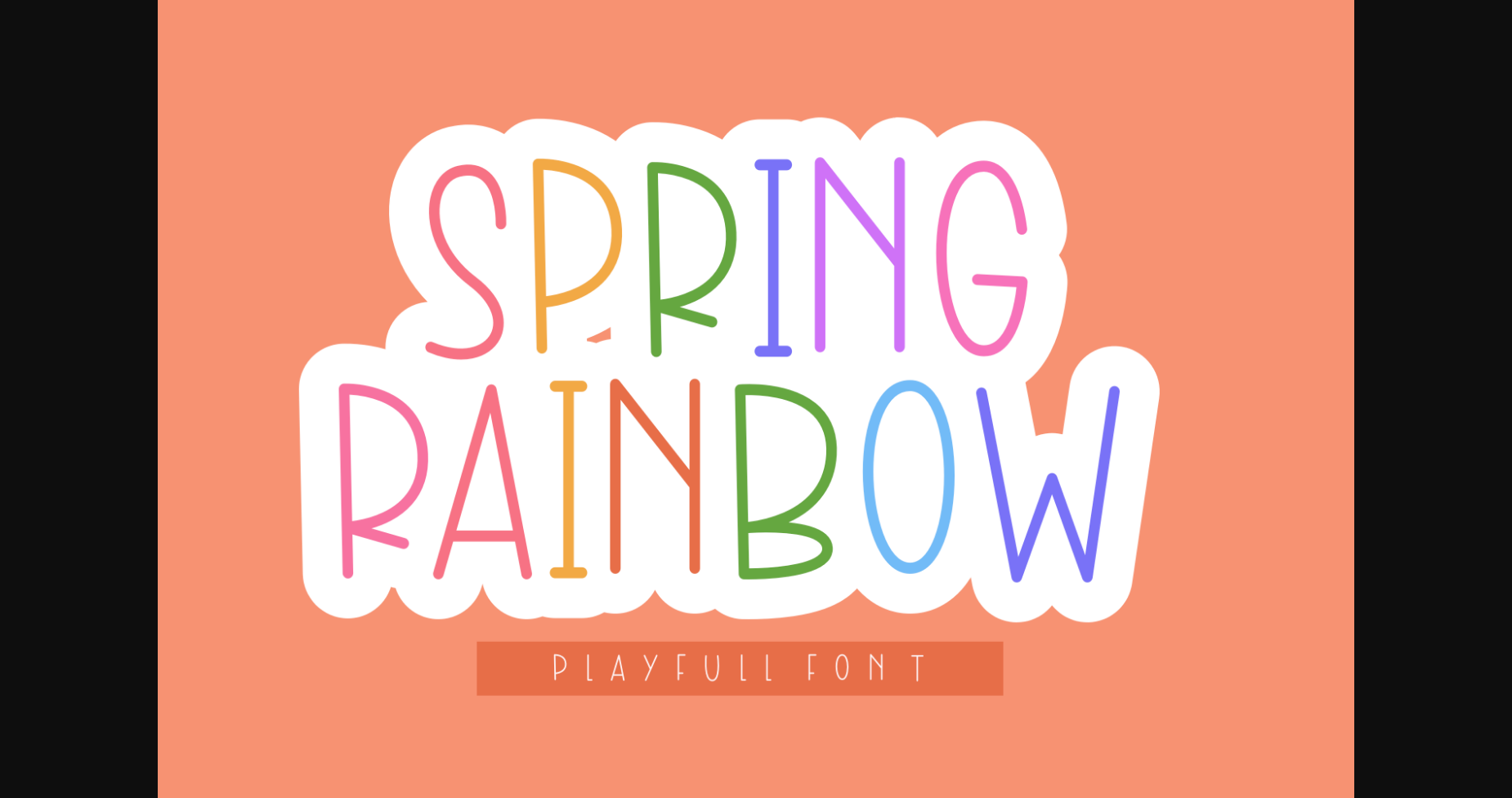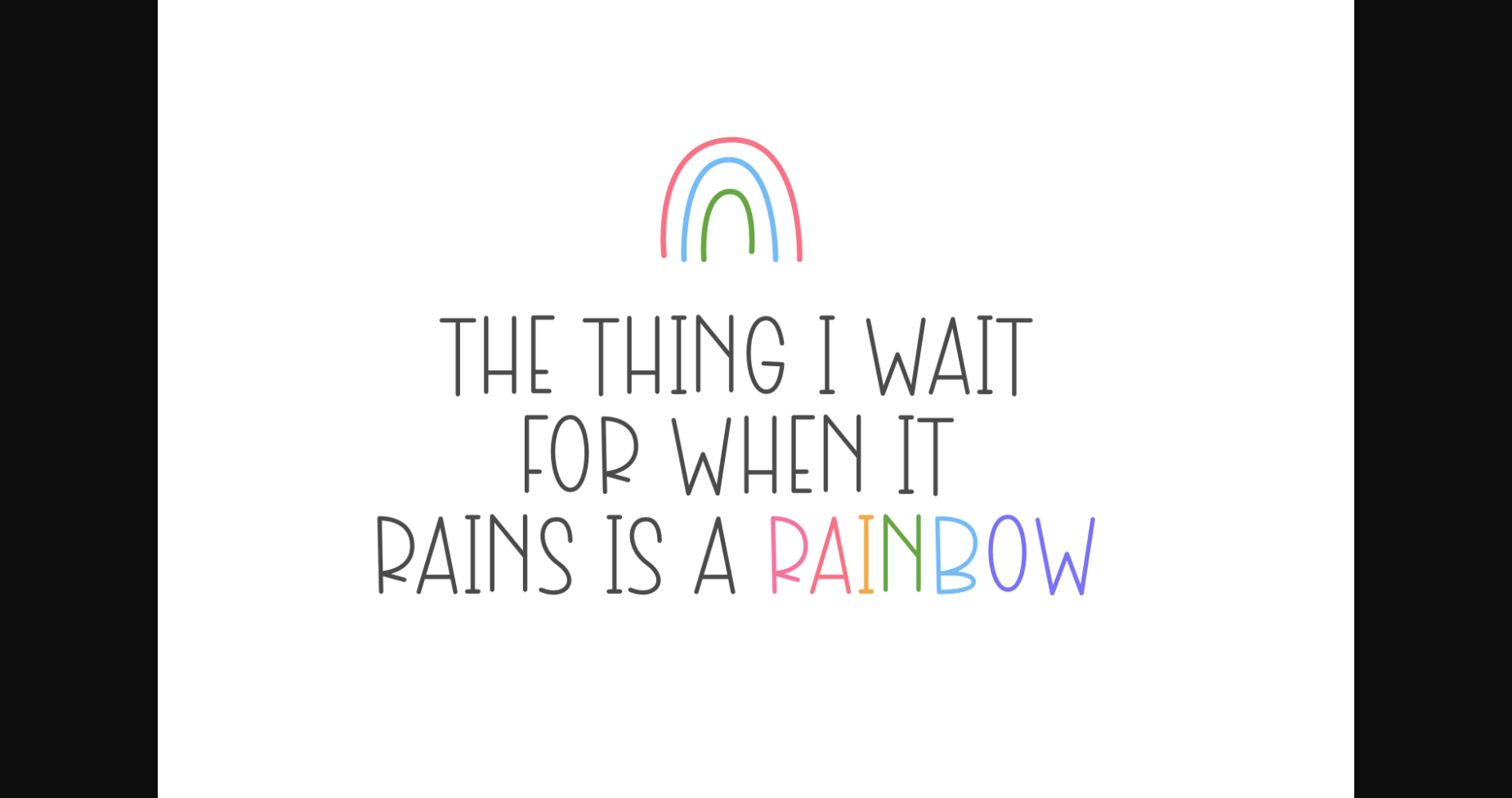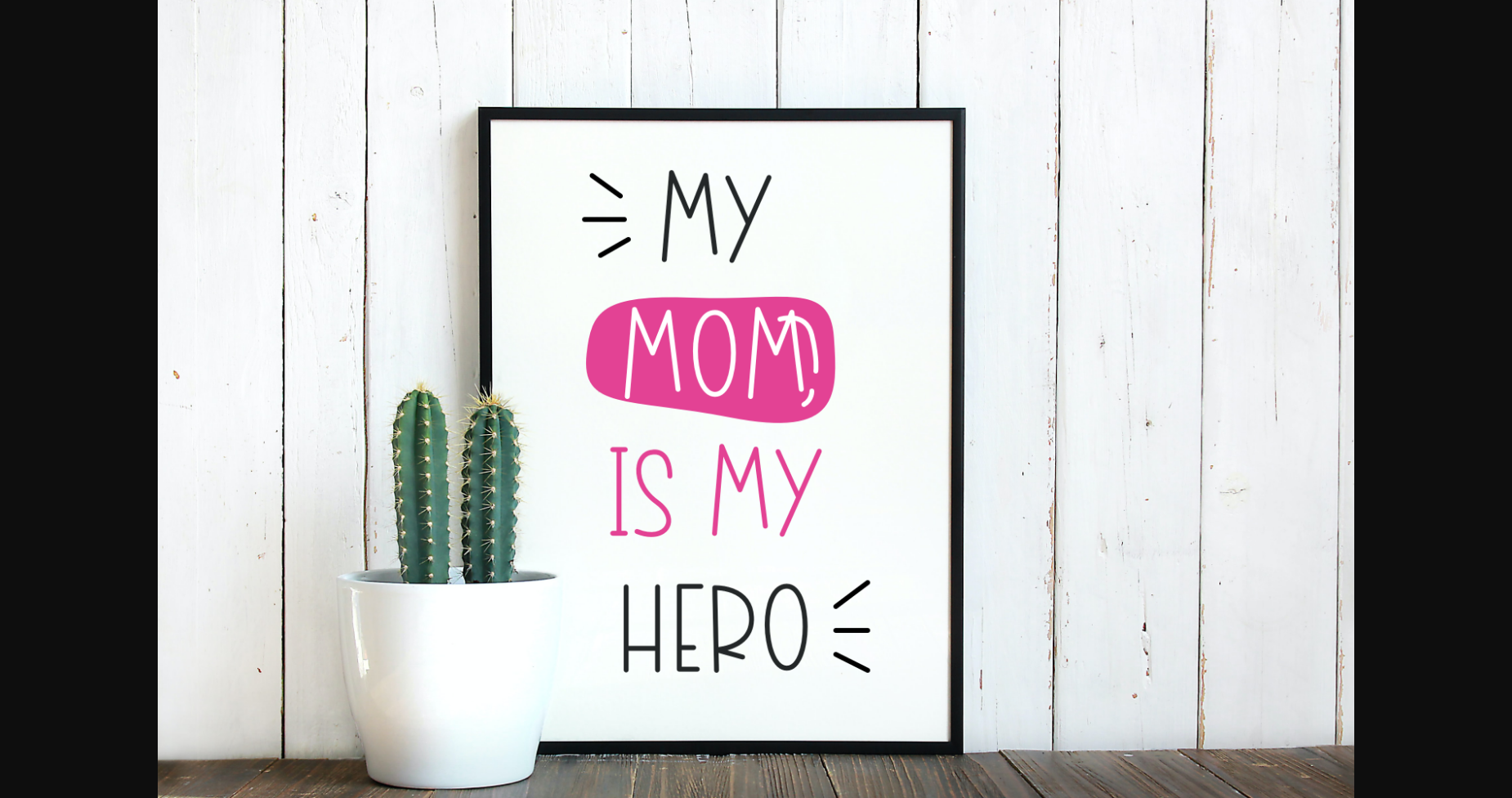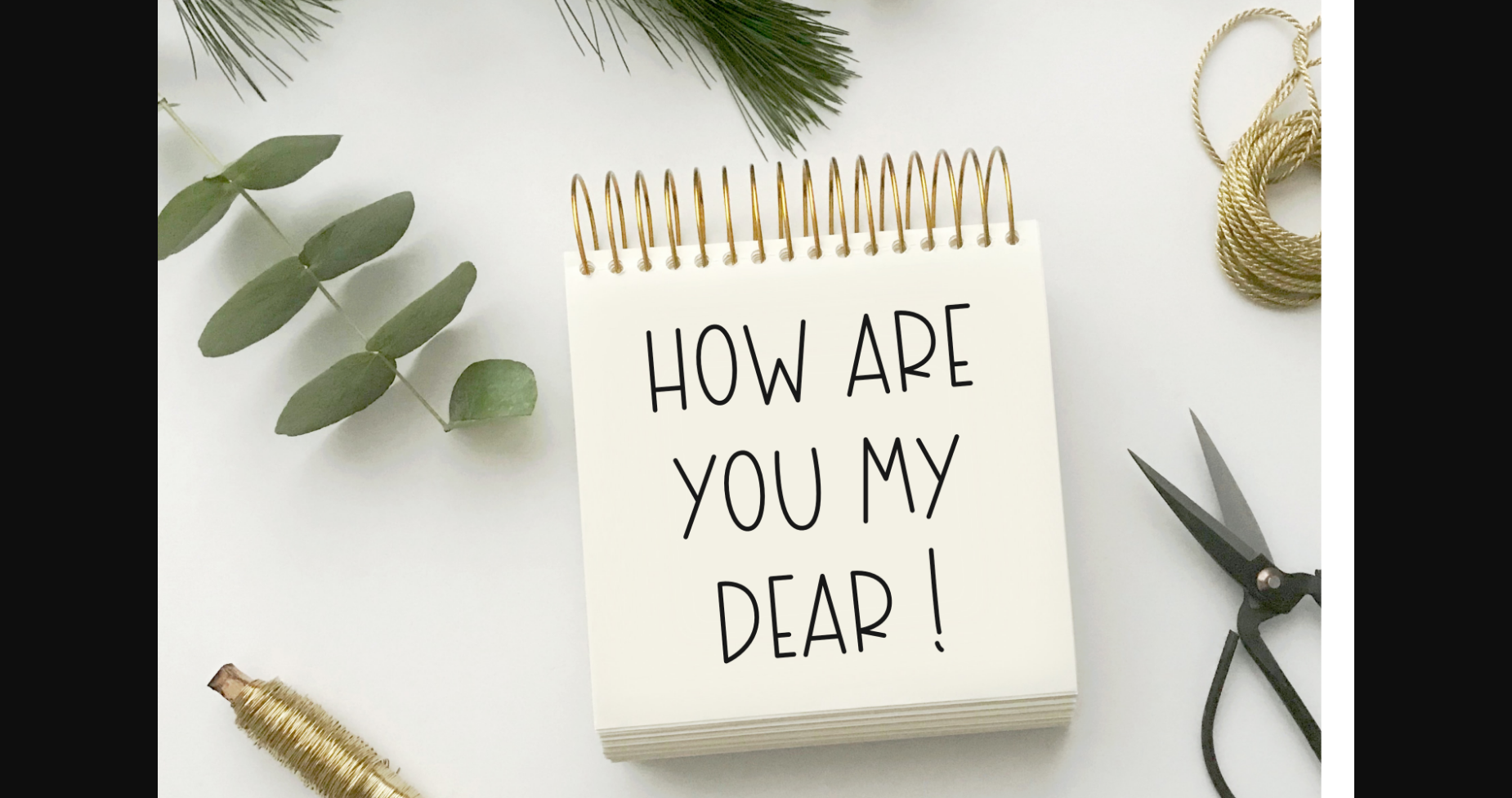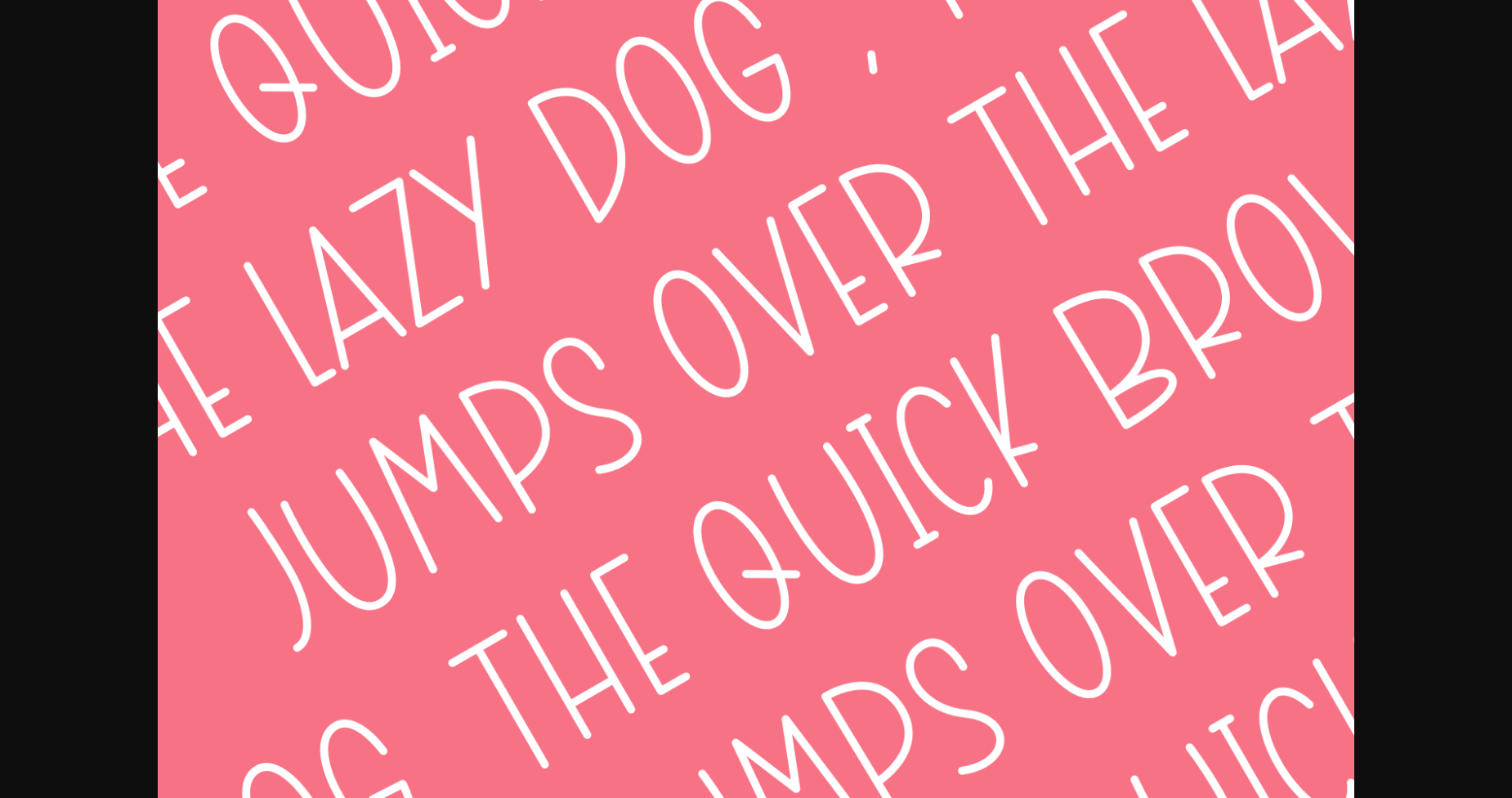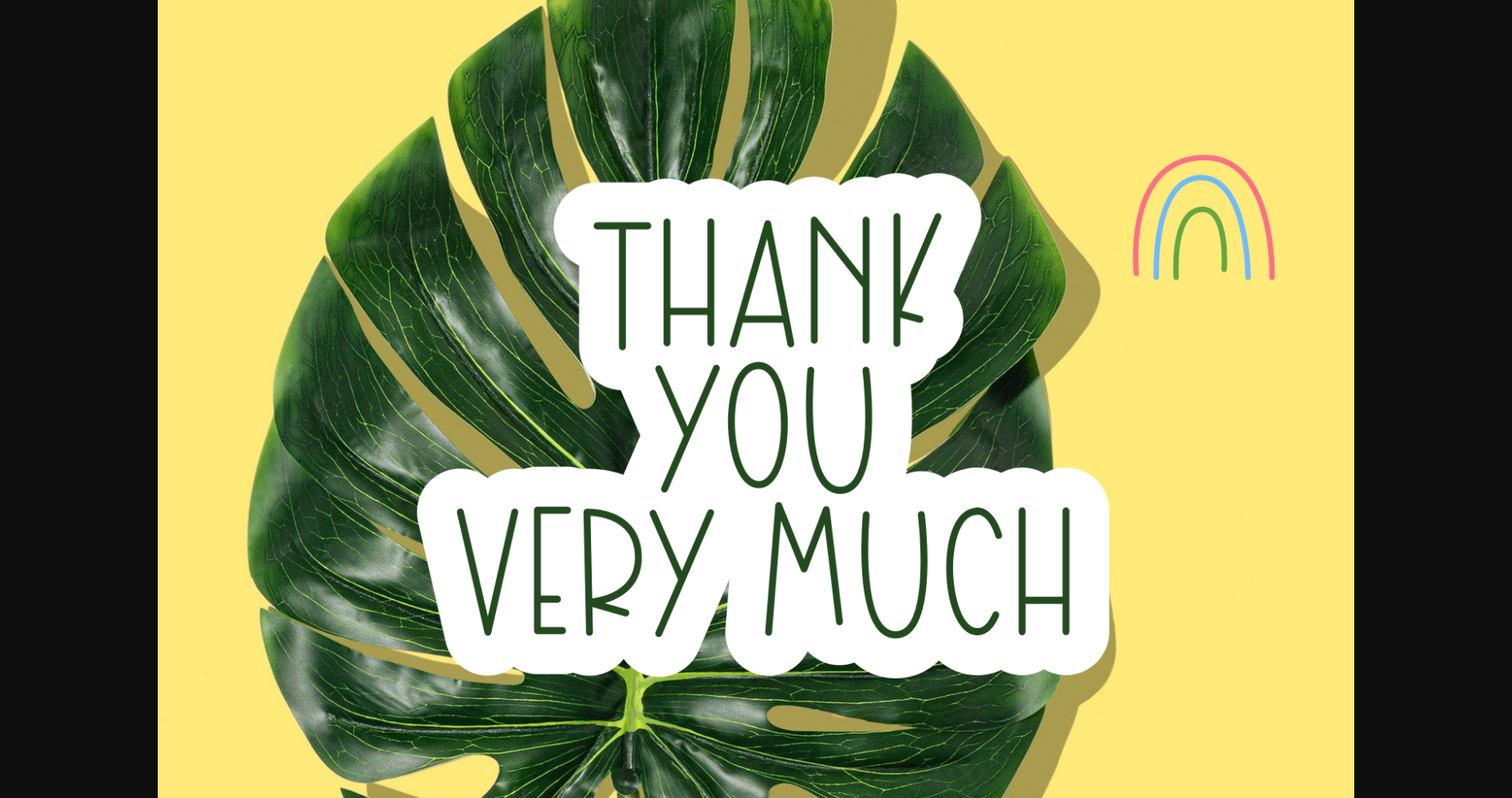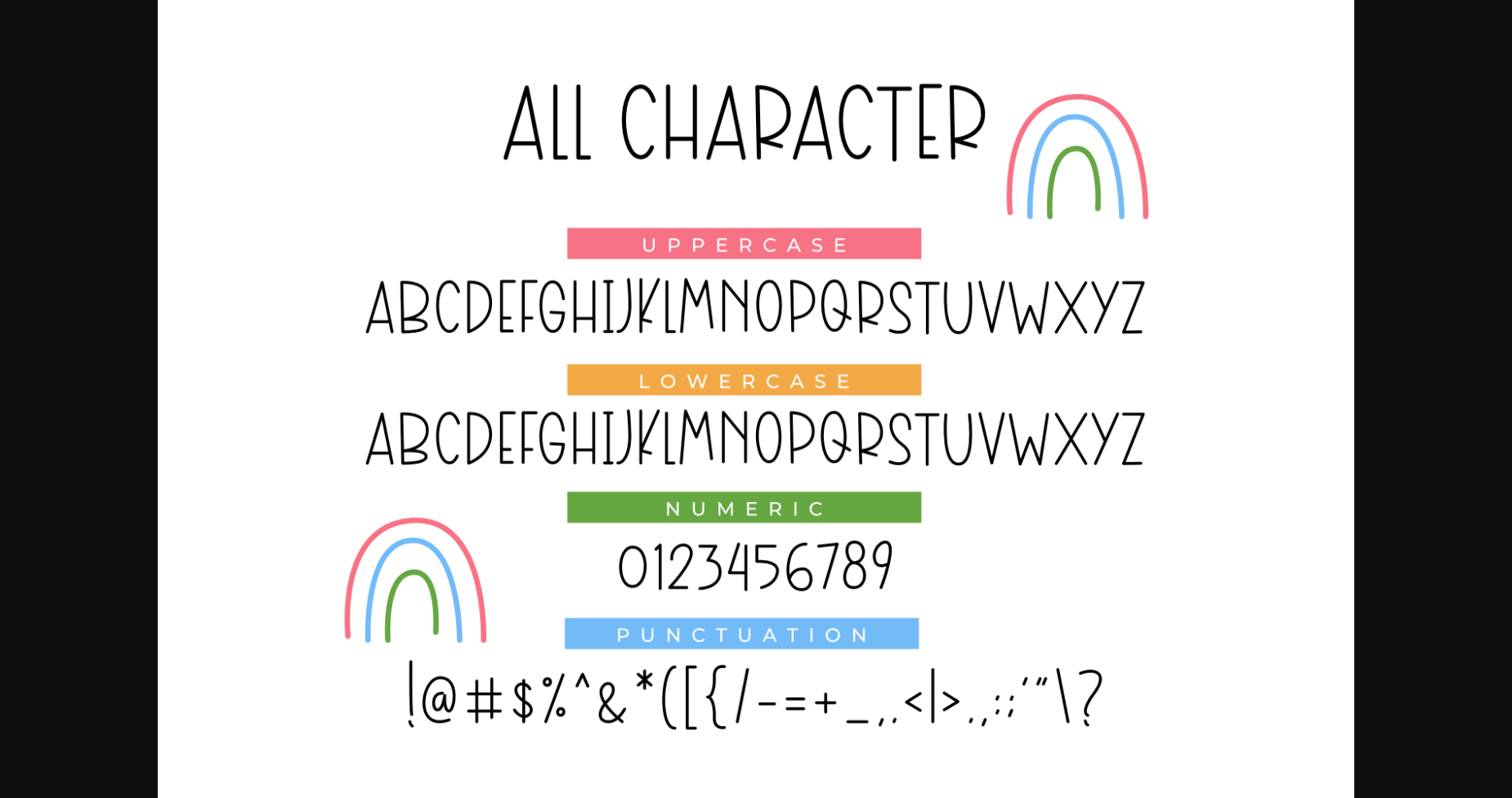
HomeSans Serif FontsSpring Rainbow Font Sans Serif Fonts Spring Rainbow Font FacebookXPinterestWhatsApp 1 of 9 ... Spring Rainbow Font Poster 2... Spring Rainbow Font Poster 3... Spring Rainbow Font Poster 4... Spring Rainbow Font Poster 5... Spring Rainbow Font Poster 6... Spring Rainbow Font Poster 7... Spring Rainbow Font Poster 8... Spring Rainbow Font Poster 9... About Spring Rainbow Font Spring Rainbow is a thin, tall and adaptable sans serif font. This font is perfect for children themed designs, especially when combined with bright colors. DOWNLOAD NOW People also explored Whitehall JNL Font Grinch Reborn Font Aharon Font Calligraphy Font Sweetness Marshmallow Duo Font Old Typewriter Elisara Gold Decorated Frame Mockup with Magenta Tulips Bouquet Balirado Font 261 0 TagsSpring Rainbow Font Previous articleCharollion FontNext articleQichen Font LEAVE A REPLY Cancel reply Comment: Please enter your comment! Name:* Please enter your name here Email:* You have entered an incorrect email address! Please enter your email address here Website: Save my name, email, and website in this browser for the next time I comment. Personal Use Free Budmo Personal Use Free Read more about this font Krait Personal Use Free Read more about this font Cinderella Personal Use Free Read more about this font Eloquence Personal Use Free Read more about this font BLOG How to Install and Use Fonts on Windows, macOS, and Web Projects How to Install and Use Fonts on Windows, macOS, and Web Projects Fonts are a crucial part of design and branding. Whether you’re designing a... How to Cut Any Font on Cricut: Convert a Font to SVG (Free) Top 10 Handwritten Fonts That Elevate Your Designs Free vs Paid Fonts: Why Investing in Premium Fonts Is Worth It